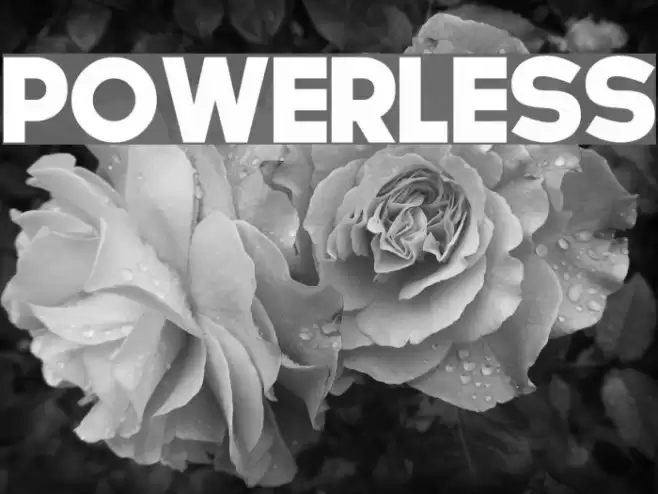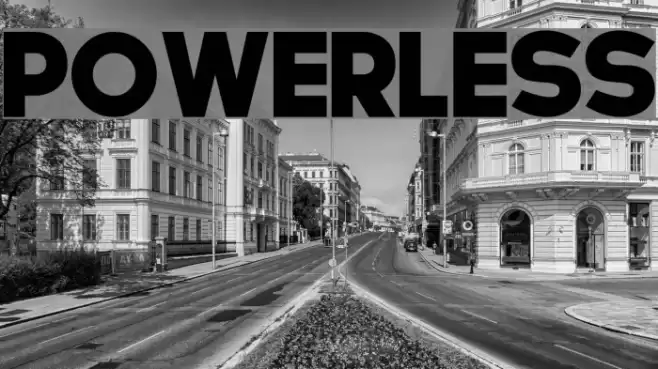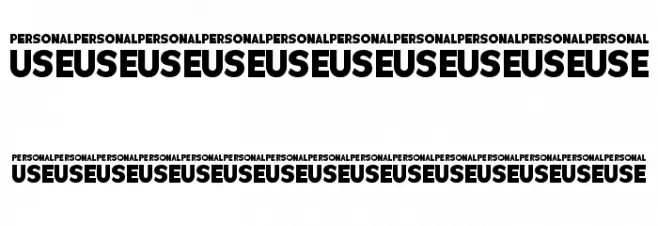
POWERLESS Font
POWERLESS Description
This font exhibits a bold and impactful design, characterized by thick, uniform strokes that convey strength and assertiveness. The uppercase letters are particularly striking, with a geometric precision that enhances readability and visual appeal. The font maintains a consistent weight throughout, ensuring a cohesive look across all characters. Its sans-serif nature gives it a modern and clean aesthetic, making it versatile for various design applications. The spacing between characters is tight, contributing to its compact and robust appearance. This font is well-suited for projects that require a strong visual presence, such as branding, advertising, and headlines.
A bold, modern sans-serif font with tight spacing and geometric precision from Uncategorized fonts.
- Proposed Projects: Ideal for branding, advertising, headlines, and any project needing a strong visual impact.
- Character Spacing: Tight
- Use Case: Headlines, Logos, Branding